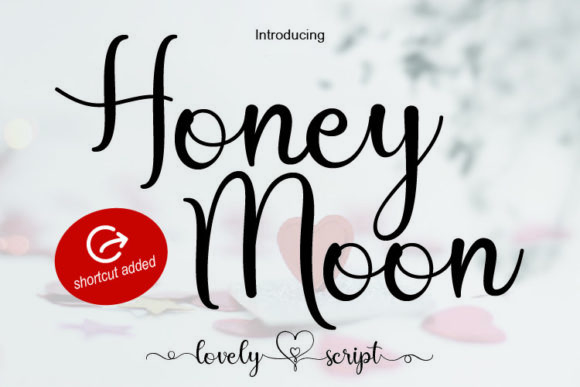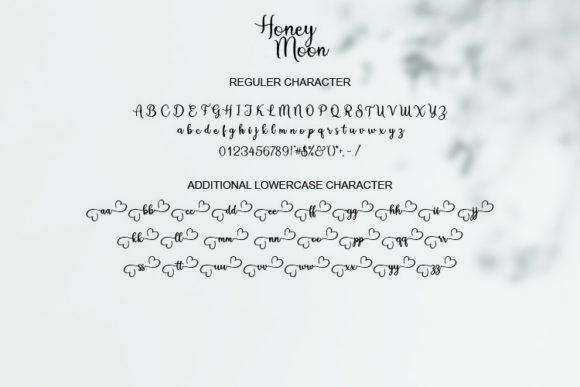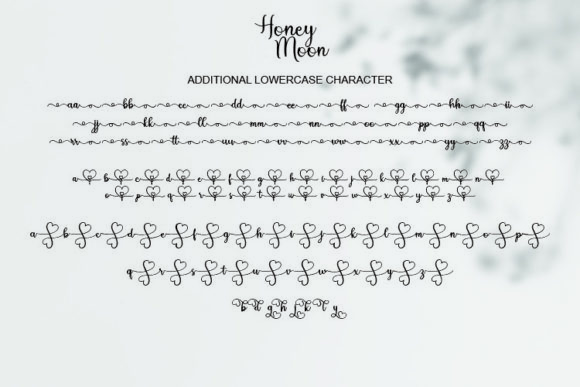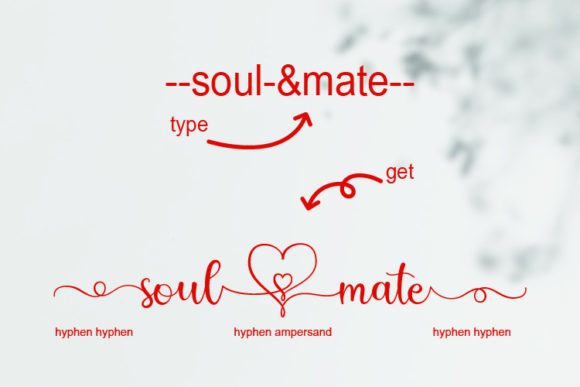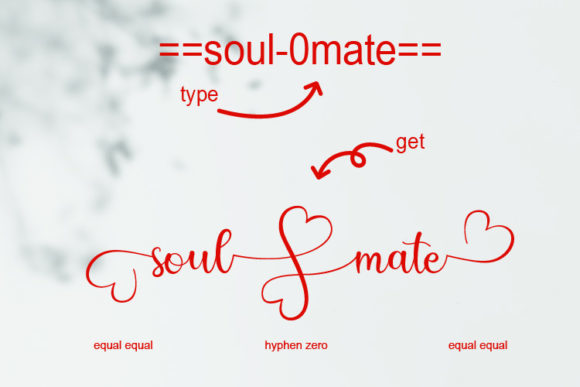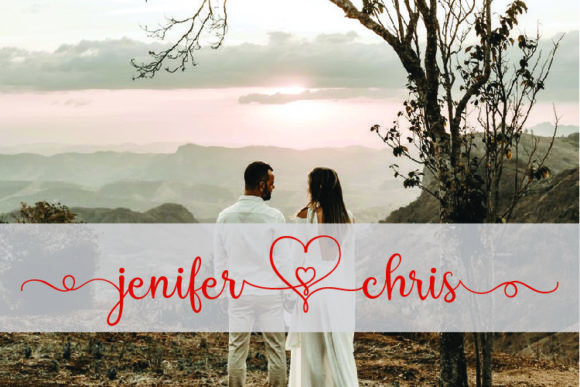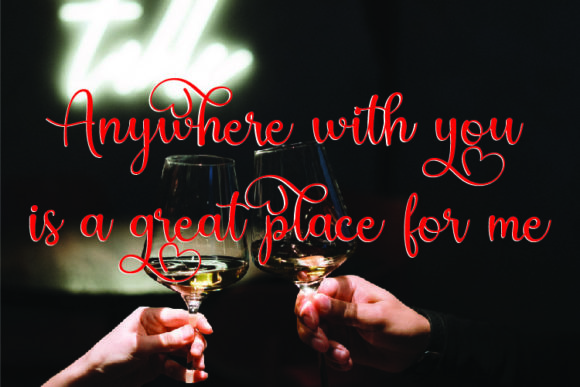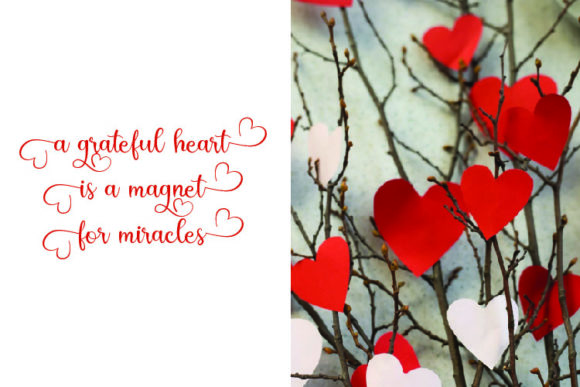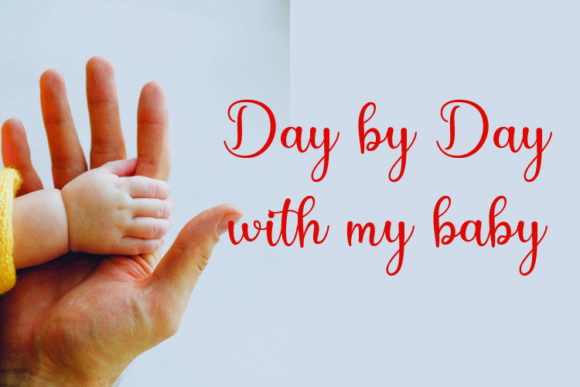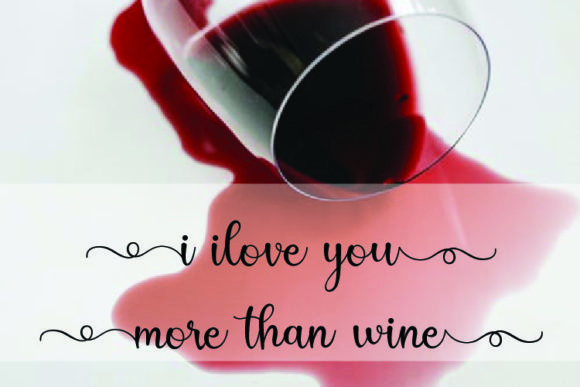
Honey Moon Script Font
About Honey Moon Script Font
“Honey Moon Script” emerges as a romantic and light handwritten font, graced with a unique swash that adds a touch of elegance. It becomes the embodiment of charm, ready to infuse your projects with a romantic allure. As you confidently integrate “Honey Moon Script” into your designs, prepare to be captivated by the enchanting results that await.
Visualize “Honey Moon Script” as a gentle stroke of the pen, delicately tracing each character with a sense of tenderness and grace. Its romantic essence and distinctive swashes elevate your projects, transforming them into visual treasures that evoke emotions. As you weave this font into your creations, you’ll embark on a journey where your concepts evolve into captivating visual narratives.
Beyond its visual appeal, “Honey Moon Script” encapsulates an essence of romance and uniqueness. Its handwritten nature and swashes intertwine, bestowing a touch of authenticity upon your designs. More than mere visuals, your creations become expressions of love and creativity.
“Honey Moon Script” stands as an invaluable asset in your design arsenal. Its PUA encoding ensures easy access to all the glyphs and swashes, offering a playground for your artistic endeavors. Whether you’re creating invitations, crafting heartfelt messages, or adding a touch of romance to branding, this font amplifies the resonance of your message.
In a world where design speaks the language of the heart, “Honey Moon Script” becomes your tool for crafting designs that stir emotions and leave a lasting impact. Let its romantic strokes be the artistic flourishes that enhance your creations, infusing them with a touch of tenderness and uniqueness. Embrace the romantic allure of “Honey Moon Script” and watch as it transforms your projects into captivating showcases of heartfelt creativity, resonating deeply with all who engage with them.